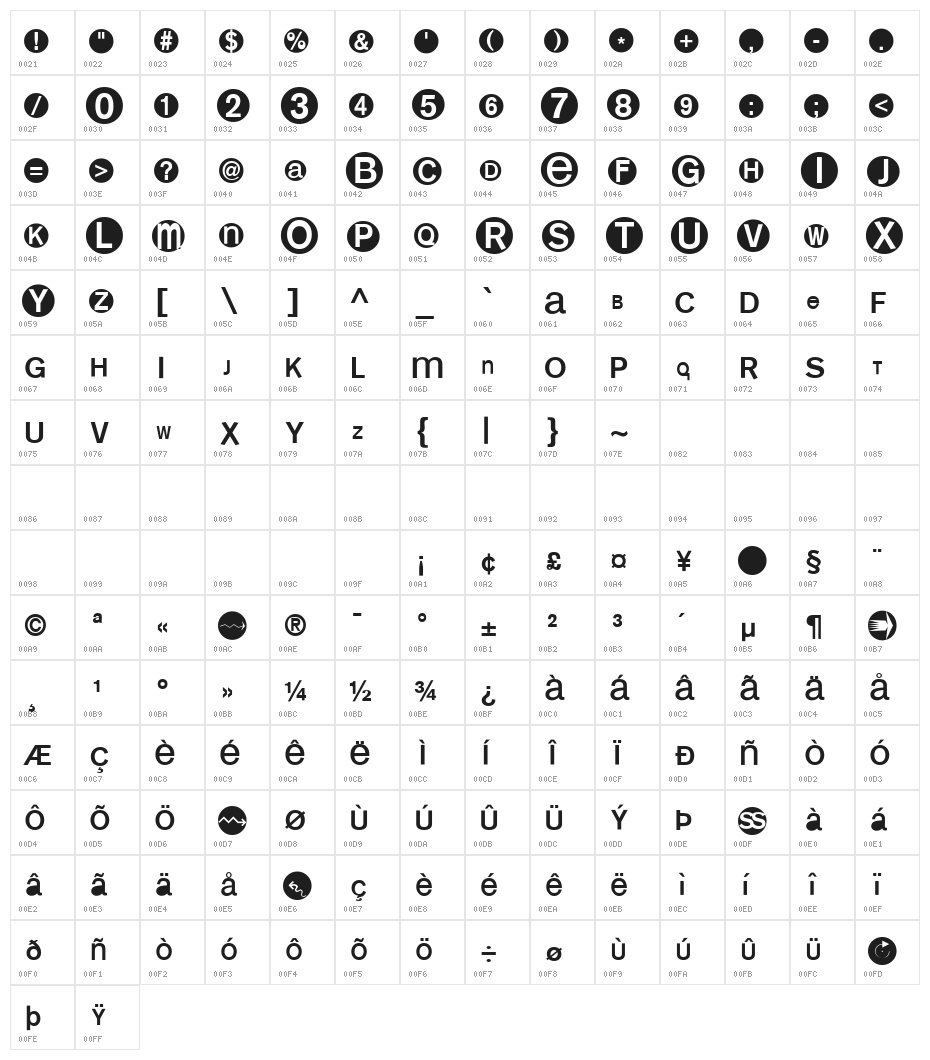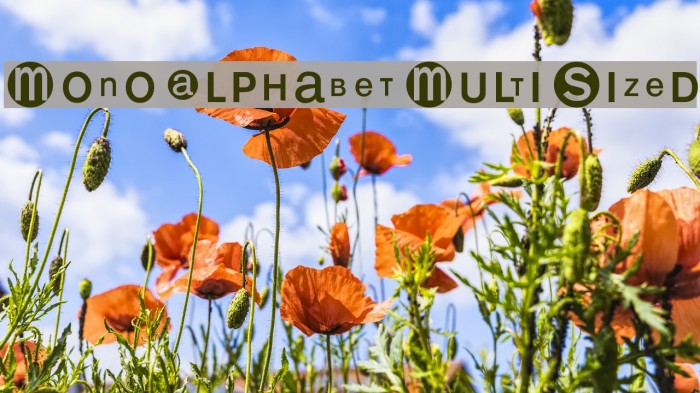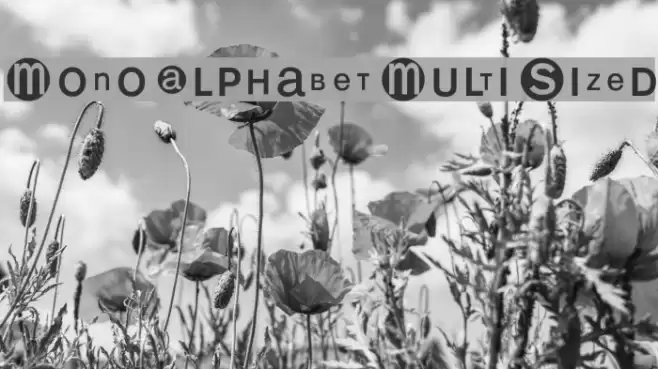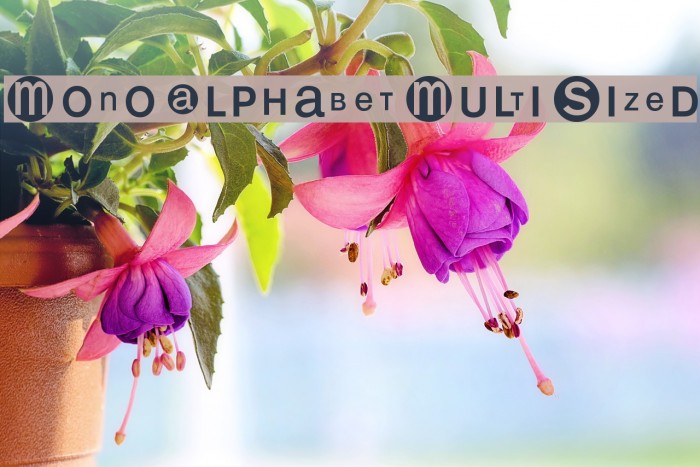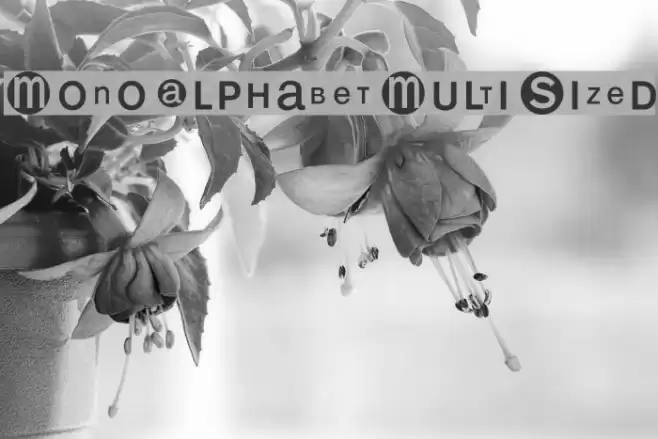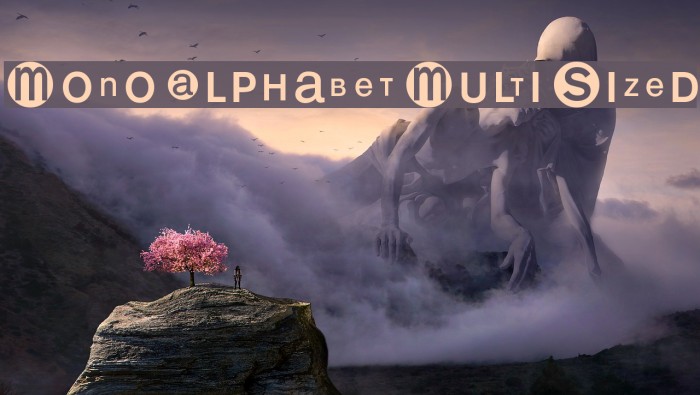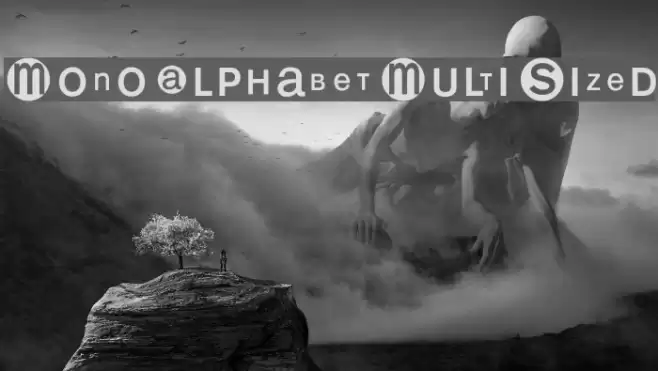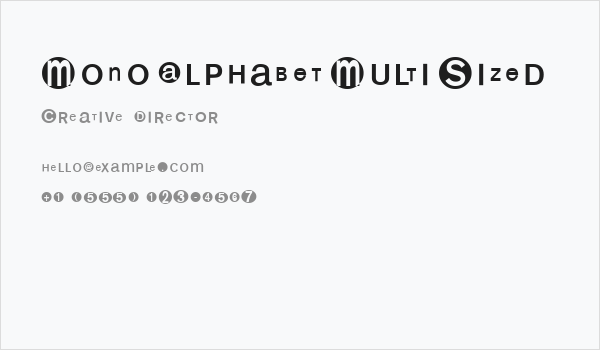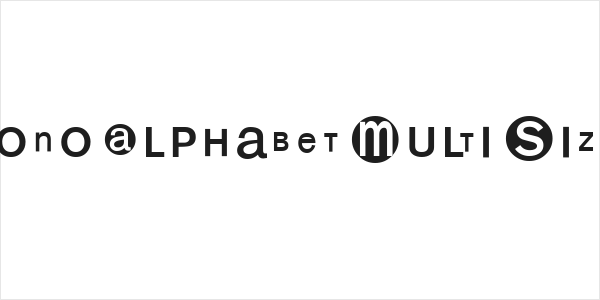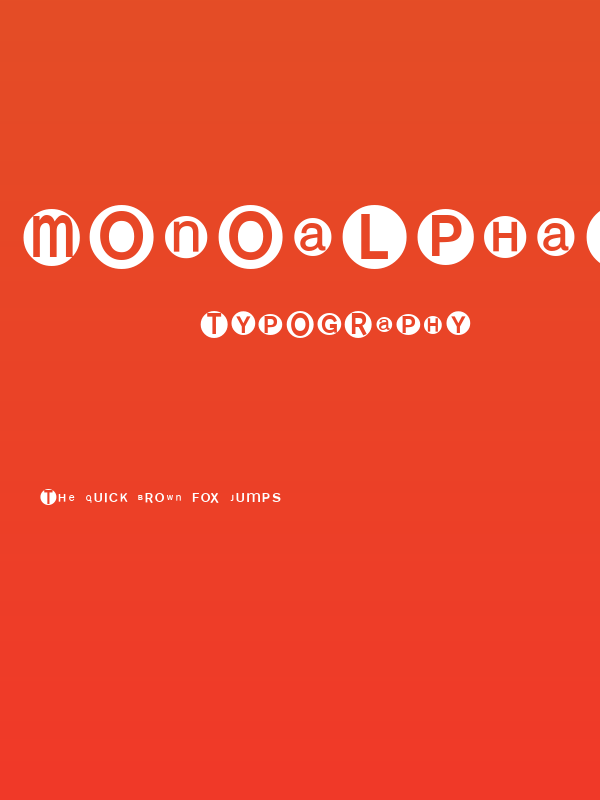
MonoAlphabetMultiSized Font
MonoAlphabetMultiSized Description
This font features a unique combination of monospaced and multi-sized characters, creating a distinctive visual impact. The uppercase letters are enclosed in bold circular backgrounds, providing a strong contrast against the lowercase letters, which are more traditionally styled. The numbers and special characters also follow this pattern, with some enclosed in circles and others standing alone. This design choice gives the font a playful yet structured appearance, making it suitable for creative and modern projects. The mix of bold and regular weights within the same typeface adds versatility, allowing for varied emphasis in text.